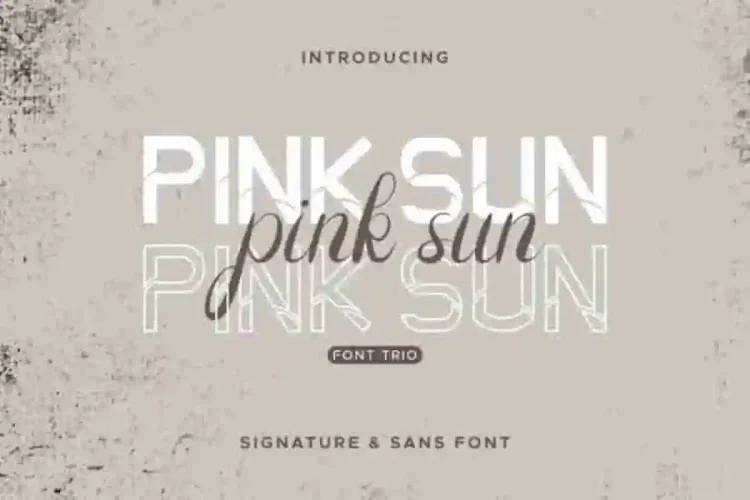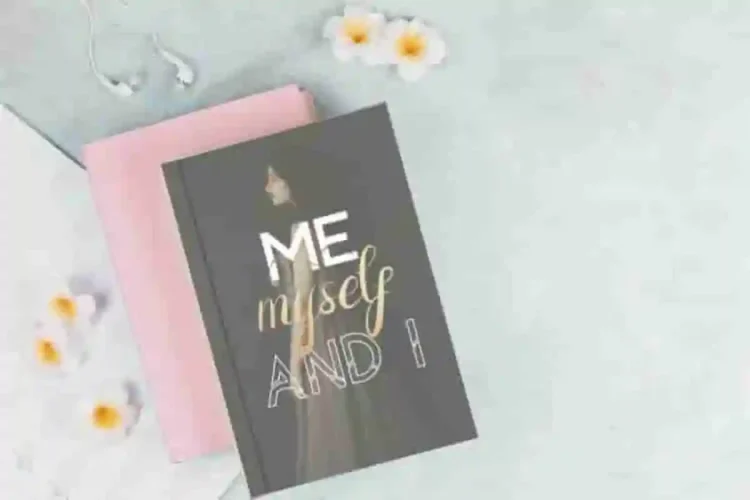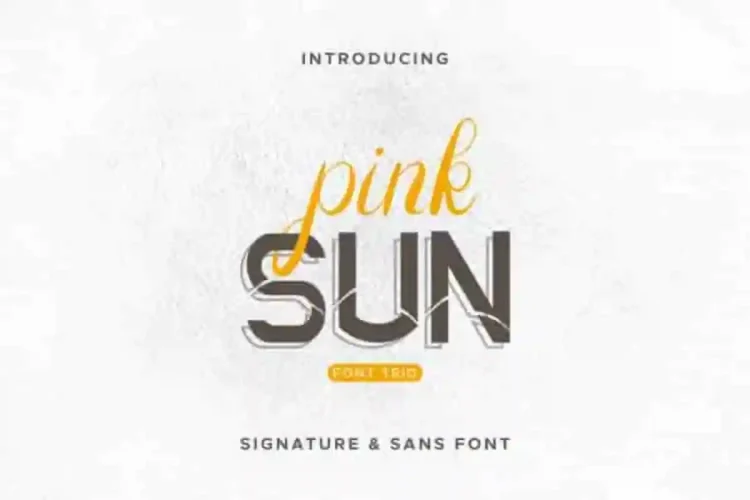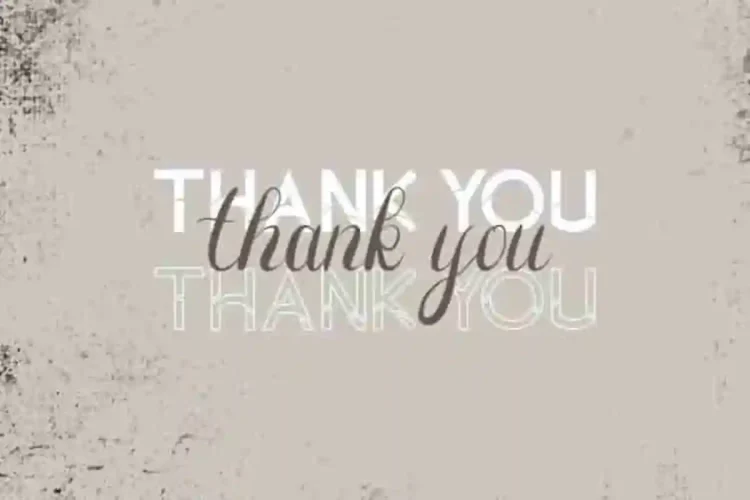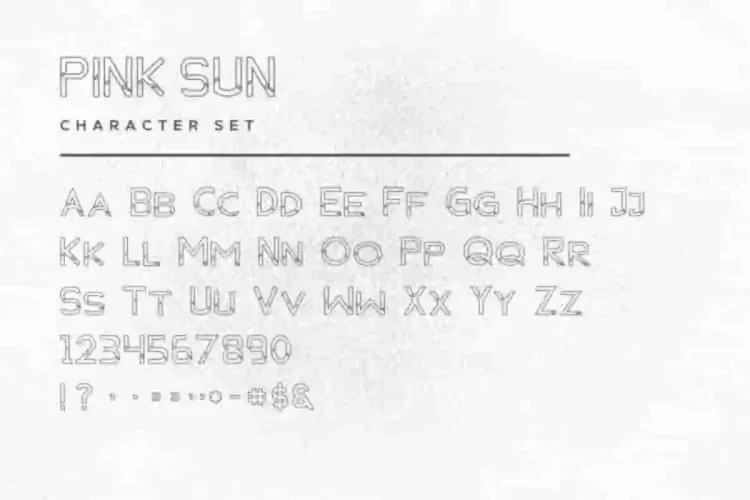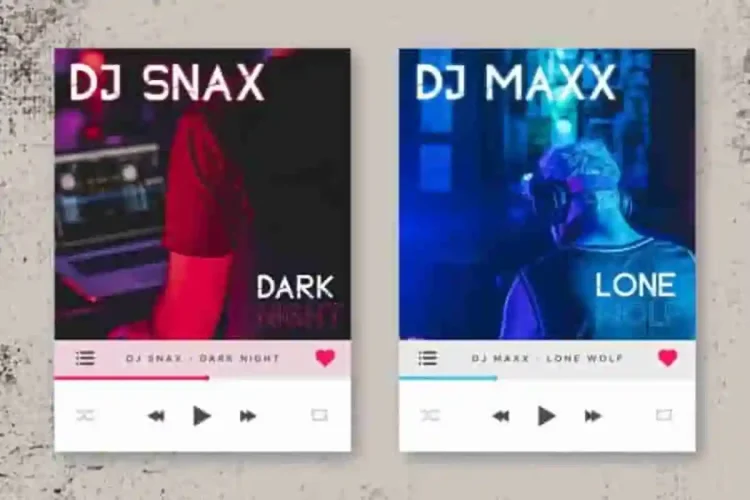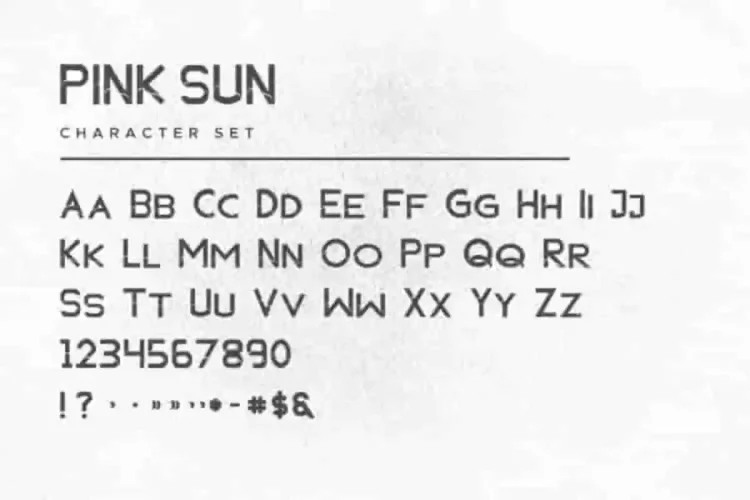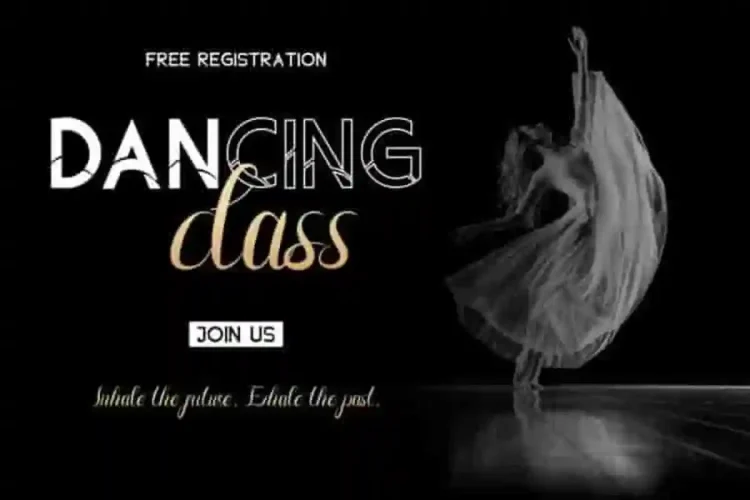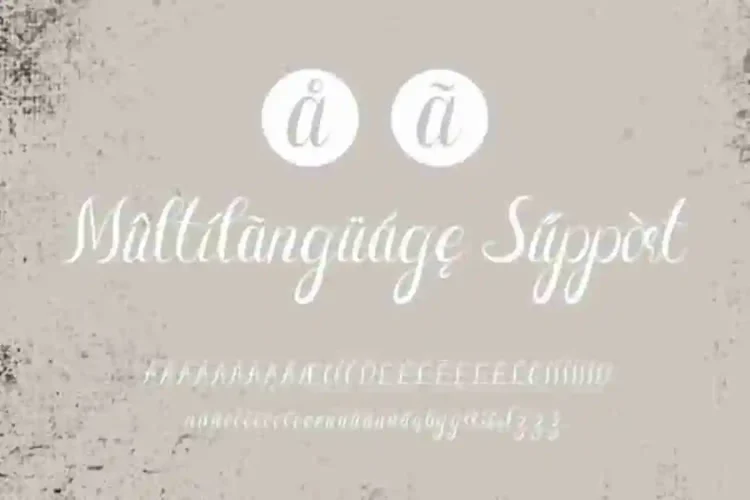
Pink Sun Modern Script Font Trio
Pink Sun Modern Script Trio
This is a Font Duo Family, handcrafted from our Studio here in Indonesia. The artists/designers  are Widiyanti, Renata and Sarah.
Pink Sun Modern Script Font Trio is an exclusive font family with two different styles. This font has a great characters set, perfectly managed with well spaced and kerning.
Pink Sun Modern Script Font Trio will be great for any projects including : branding, logo, stationery, business card, signage, flyer, brochure etc. Almost all industries will be match for this typeface: wedding, events, music, concert florist, gardening, makeup artist, travel, musician etc.